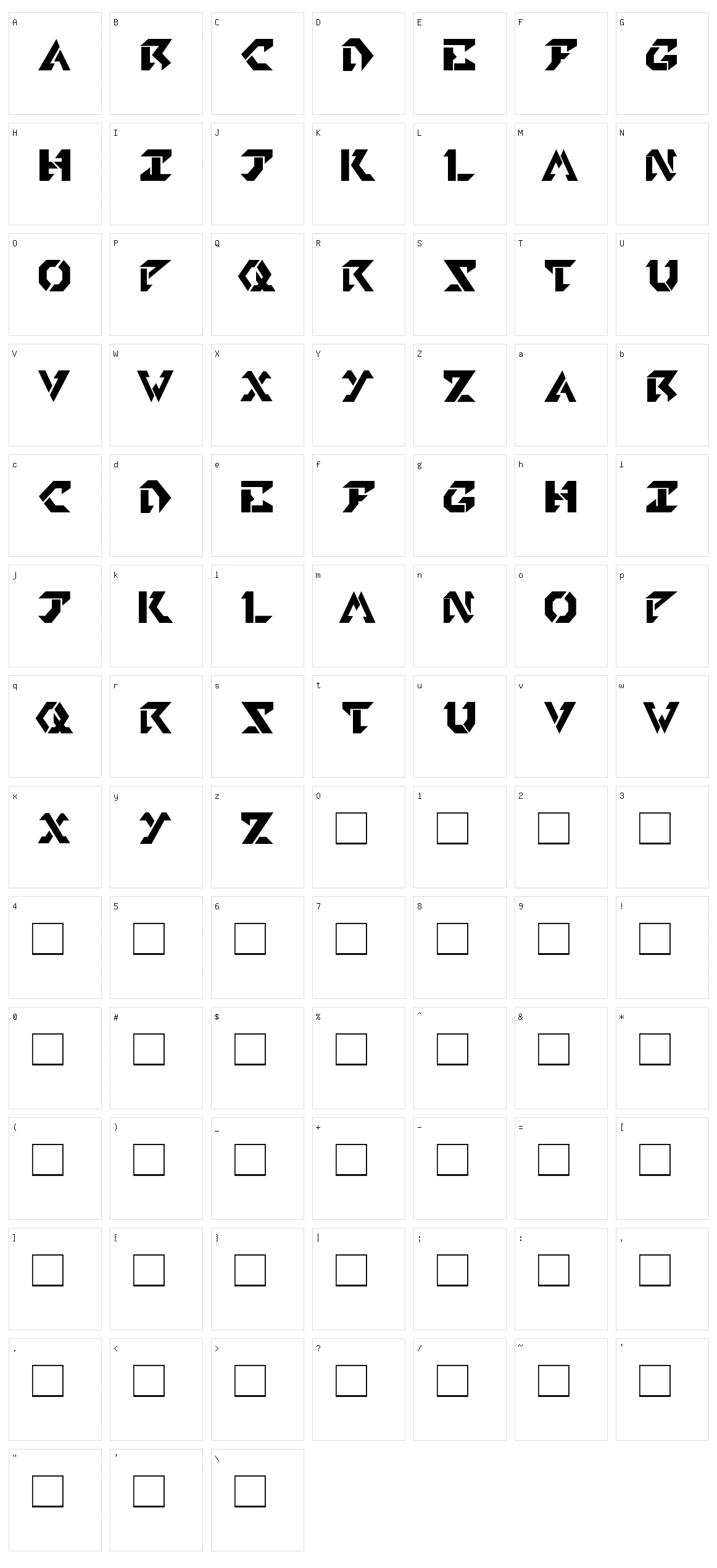
Tekhead PD
Designed by: Petroglyhic Design
This is but one of many new fonts to be put out by
PETROGLYHIC DESIGN
*****This font is inspired by the logo for tekwar******